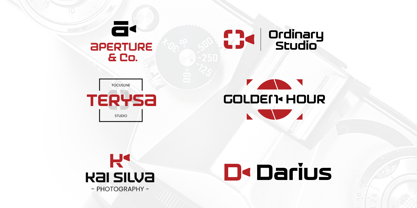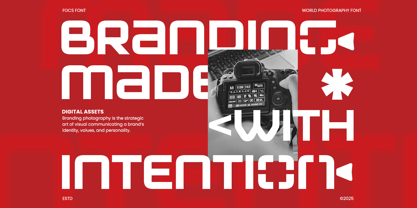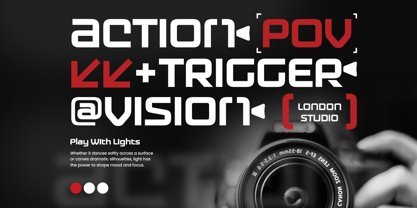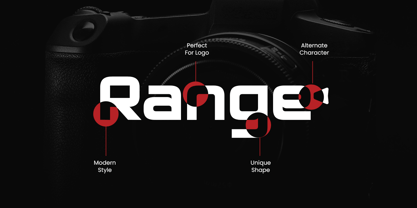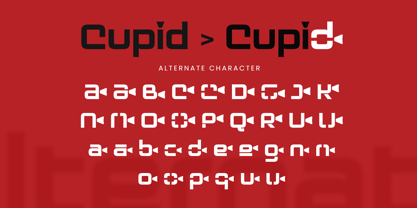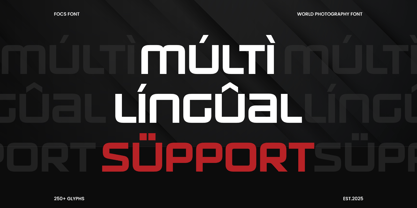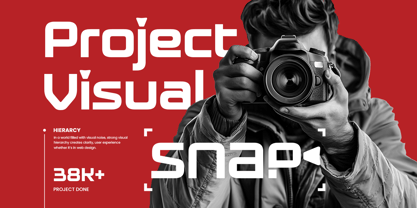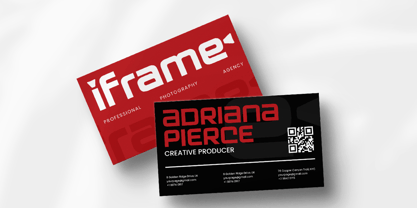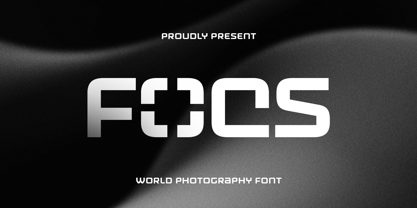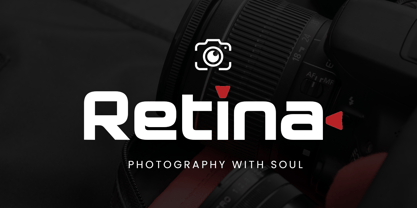
FOCS is a world photography font designed specifically for photographers, creatives, and brands that want to showcase the beauty of the visual world. With its sleek, modern design and elegant letterforms, FOCS brings a polished, professional look to photography logos, websites, business cards, and promotional materials.
Inspired by the art of capturing moments, FOCS offers a clean and stylish aesthetic that works seamlessly across various photography niches, from weddings to lifestyle to commercial photography. Its versatility and legibility make it the perfect choice for creating strong, impactful branding and a timeless identity.
Whether you're designing for a photography studio, personal portfolio, or a creative agency, FOCS will help your work stand out with clarity and elegance.
FOCS – World Photography Font Features
Elegant, modern letterforms designed for the photography industry
Perfect for logos, business cards, portfolios, and websites
Includes uppercase, lowercase, numerals, and punctuation
Clean, minimalist, and stylish design
OpenType features for advanced typographic styling
Capture timeless moments with FOCS – the ultimate font for world-class photography branding. 📸✨